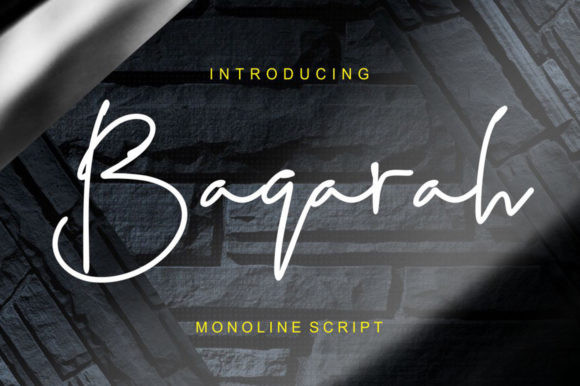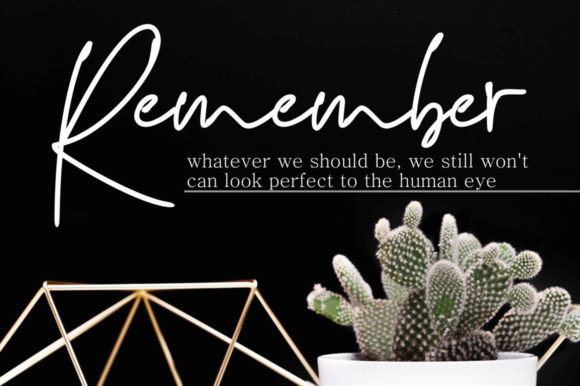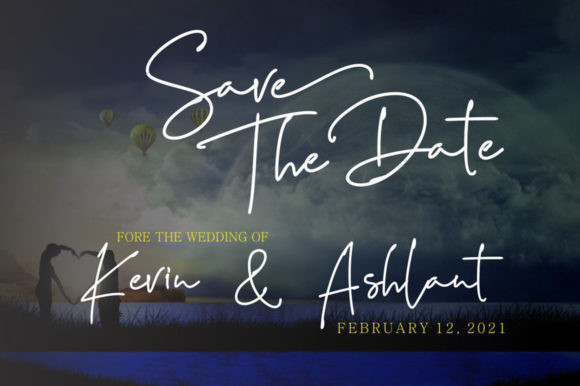
Baqarah Font
Baqarah is a unique and asymmetrical handwritten font. It looks fashionable on a variety of designs requiring a personalized style, such as wedding invitations, thank you cards, weddings, greeting cards, logos and so on. This font is PUA encoded which means you can access all of the glyphs and swashes with ease!